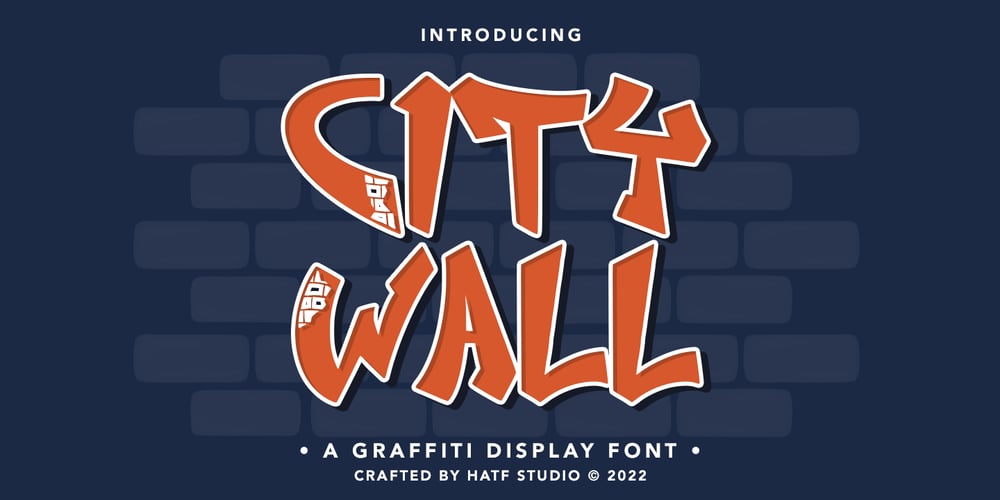
City Wall Font Family was designed by Asep Rendi and published by Hatftype. City Wall contains 1 styles and family package options. A graffiti display font with free style font that has the characteristics of street art that shows freedom and is filled with unique characters.Feature : * Symbol* Number* Punctuation* Multilingual support* Support in Mac and Windows OS* Support in design application (photoshop, illustrator, and more)I really hope you enjoy it.